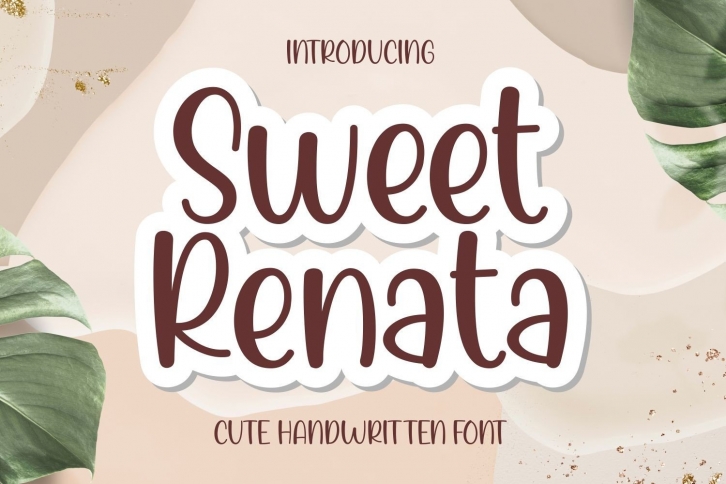
Sweet Renata is a cute and adorable handwritten font. It embodies playfulness and authenticity and is the perfect choice for any children activity or school project. Add this fun lettered font to your designs and notice how it makes them come alive!